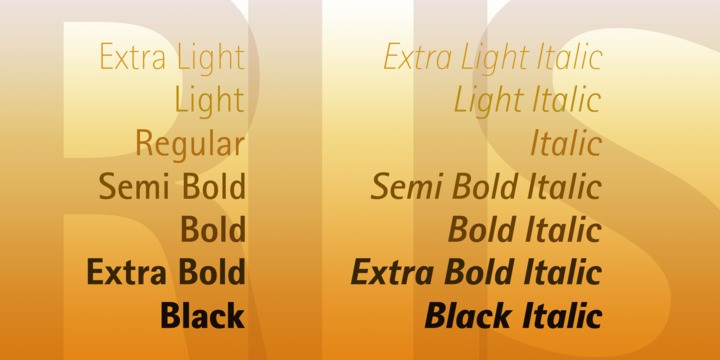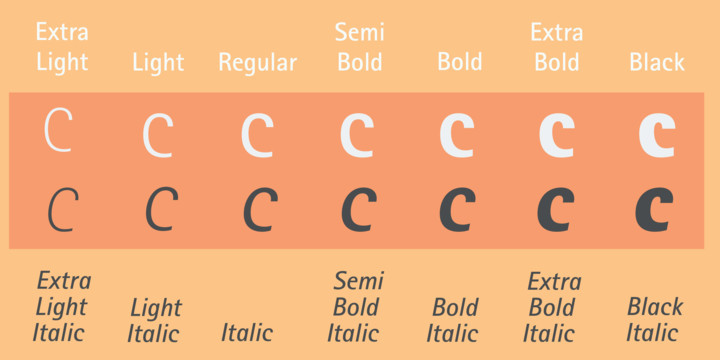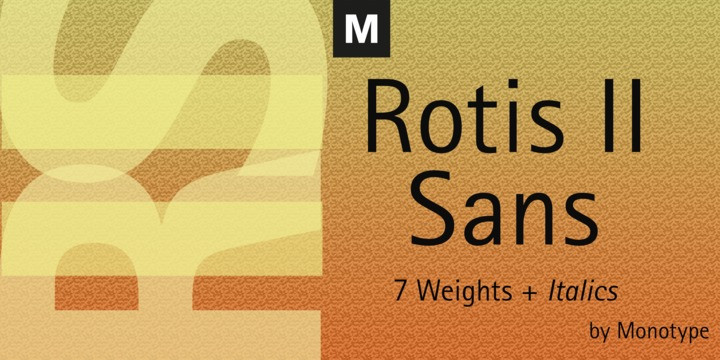
Rotis II Sans Font
Developed over several years by the late Otl Aicher and first released in the late 1980s, the Rotis® typeface has become a timeless classic.
ROTIS II SANS HISTORY
Aicher was a renowned German designer and corporate image consultant. He created the four basic designs of Rotis – sans serif, semi sans, semi seif and serif – within an extended typeface family concept, wherein all designs share a common cap height, lowercase x-height, basic stem weight and general proportions. While each version is part of the large, integrated family, each was also designed to function on its own as a distinctive typestyle. The result is that all members of the Rotis family combine smoothly with each other.
Aicher, however, did not design the Rotis family with the weights and proportions normal for more contemporary releases. Rotis Sans Serif, for example, was drawn with just six weights and only two italics. Starting in 2010, Robin Nicholas, senior designer for Monotype Imaging in the UK, and freelance designer Alice Savoie collaborated to bring Rotis Sans Serif up to current standards. The result is Rotis II Sans, a completely new addition to the Rotis family.
“We devised our approach together,” recalls Savoie, “deciding which weights to start with, what kind of alterations to make to the original Rotis, etc. I went to work on the typefaces, regularly submitting proofs to Robin. We would then decide in tandem on the next steps to take.”
Nicholas elaborates, “We revisited the range of weights and added matching italics so that the new additions to the family offer increased versatility. We optimized the outlines, corrected the weight of several letters and re-examined overall spacing and kerning. In addition to a new set of numerals, with a height similar to the capitals, we also drew case-sensitive punctuation.”
ROTIS II SANS USAGE
The new Rotis II Sans suite comprises 14 typefaces: seven weights, ranging from extra light to black, each with a companion italic. The designs are available as OpenType® Pro fonts, allowing for automatic insertion of ligatures and fractions. Pro fonts also offer an extended character set supporting most Central European and many Eastern European languages. Aicher’s original Rotis designs were widely used for branding and advertising. With the addition of Rotis II Sans, the family is again poised to become a powerful communicator.